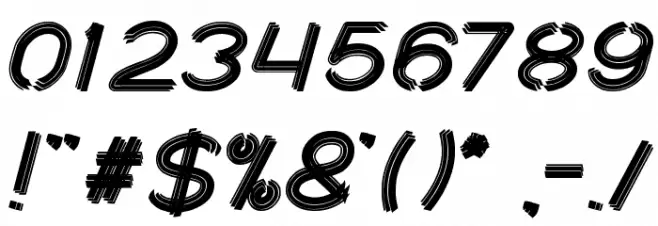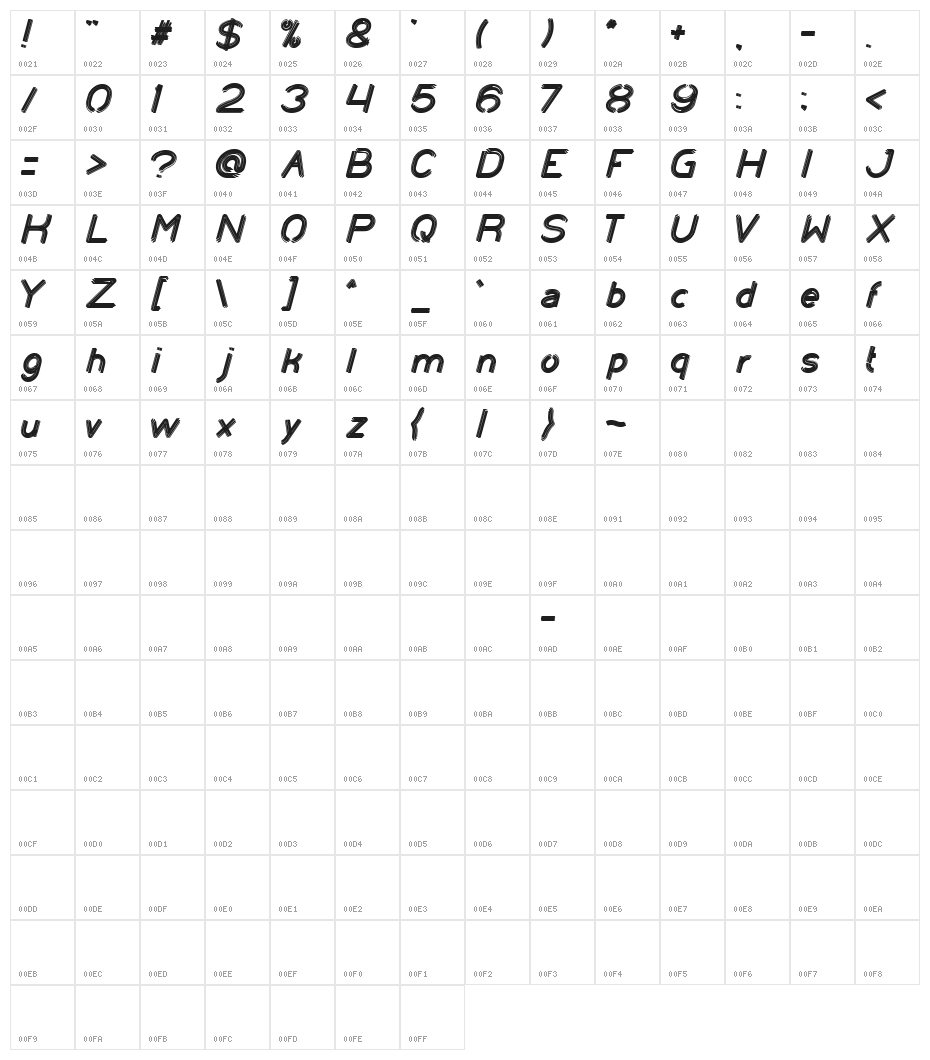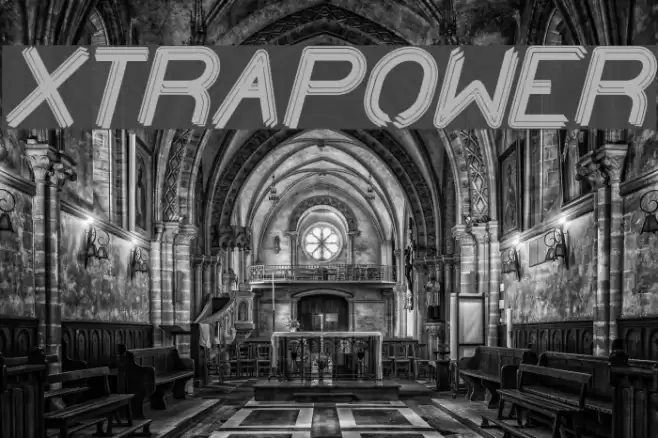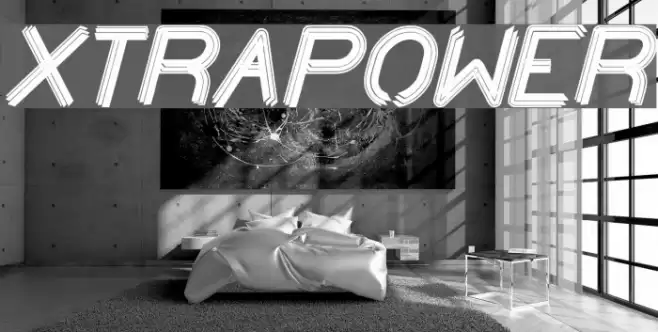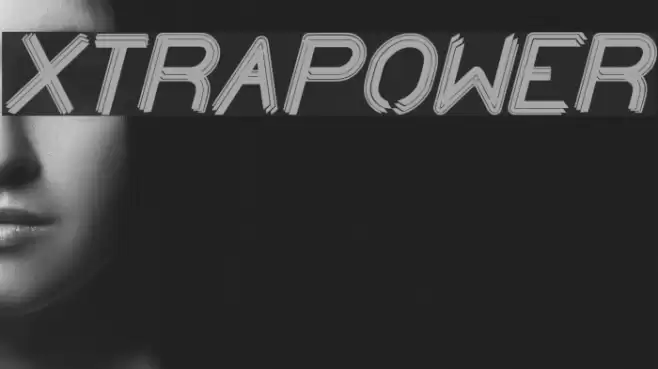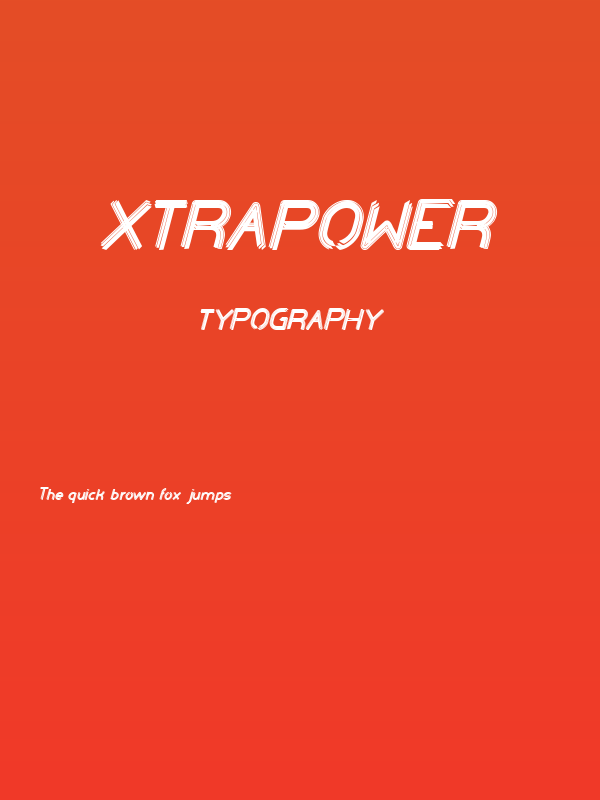
XTRAPOWER Font
XTRAPOWER Description
This font features a bold and dynamic style with a distinct three-dimensional effect created by layered strokes. The uppercase and lowercase letters maintain a consistent slant, adding a sense of motion and energy. The numerals and special characters are designed to match the overall aesthetic, making them suitable for attention-grabbing designs. The font's unique appearance is achieved through the use of multiple outlines, giving it a modern and edgy look. It is well-suited for projects that require a strong visual impact.
| Proposed Projects | Ideal for sports branding, event posters, dynamic logos, and modern advertising campaigns. |